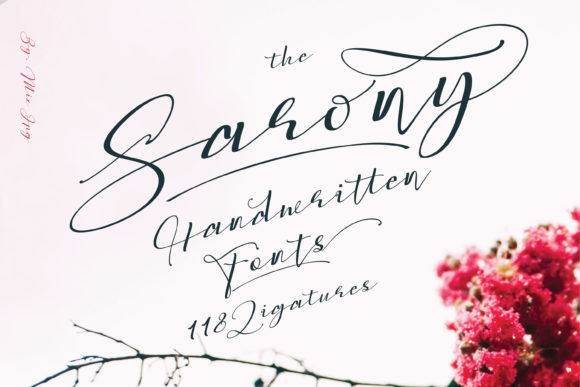
Sarony Font: Elevating Campaign Visuals with Elegant Script
Last Tuesday, while finalizing the creative assets for a boutique skincare launch, I hit a familiar wall. The product photography was stunning, and the copy was sharp, but the headlines felt disconnected from the brand’s luxurious yet approachable identity. Standard serifs felt too stiff, and trendy markers looked too casual for a premium price point. This is exactly where Sarony simplifies elegance into one truly outstanding handwritten font that bridges the gap between high-end editorial and personal connection. As marketers and creators, we often spend hours searching through hundreds of Fonts to find that single typeface which makes a campaign click, and Sarony has become my go-to solution for projects demanding sophisticated warmth.
Using Sarony for Branding and Premium Product Headings
When integrating Sarony into branding and headings, this Script Handwritten typeface immediately establishes a tone of curated luxury without sacrificing readability. In our recent campaign workflow, I needed a display font that could carry the weight of a new collection name while still feeling intimate enough for direct-to-consumer marketing. Sarony excels here because its letterforms possess a natural rhythm that mimics high-quality calligraphy but maintains the structural integrity required for digital scaling. Unlike many decorative fonts that crumble at smaller sizes or lose their charm when bolded, Sarony retains its elegant silhouette across website headers, packaging labels, and digital ad overlays.
The strategic value of using Sarony for branding lies in its ability to humanize commercial messaging. For the skincare launch, we used it exclusively for the primary campaign slogan and product category titles. This created a clear visual hierarchy where the script signaled emotional resonance and premium quality, while a clean geometric sans serif handled the technical specifications and pricing. This pairing is crucial; Sarony provides the personality, but it needs a neutral partner to ensure the overall design remains functional. When you are building a brand identity system, having a reliable Script Handwritten option like Sarony allows you to create templates that feel bespoke rather than generic, significantly boosting perceived brand value.
Sarony for Wedding Designs and Luxury Event Invitations
Designers working on wedding designs and invitations will find that Sarony offers the perfect balance of tradition and modern flair essential for contemporary nuptial stationery. I recently consulted on a rebrand for an event planning agency that needed to update their portfolio presentation and client welcome packets. They were struggling with scripts that looked either too dated or too messy for print production. Sarony simplified elegance into one truly outstanding handwritten font for their entire suite, from save-the-dates to table cards. The connecting strokes are fluid but distinct, ensuring that names and dates remain legible even when embossed or foiled on textured paper.
For wedding vendors and stationers, the commercial licensing and versatility of Sarony make it a high-ROI asset in your Fonts library. It works beautifully for formal invitation suites but transitions seamlessly to more relaxed elements like seating charts and welcome signs. In my workflow testing, I found that Sarony’s alternate characters and ligatures allow for customization that prevents repetitive letter shapes in long names or phrases—a common pain point with lesser script fonts. Whether you are designing for a black-tie gala or a garden party, this typeface adapts to the mood through spacing and color choices, making it a staple for any designer specializing in the wedding niche.
Optimizing Social Media Graphics with Sarony Typography
Creating scroll-stopping social media graphics requires Fonts that communicate instantly, and Sarony delivers clarity even in fast-moving feeds. During a recent Instagram content sprint, I tested Sarony against three other popular script fonts for quote cards and promotional teasers. The results were definitive: Sarony’s open counters and consistent stroke width made it significantly more readable on mobile screens. When users are scrolling quickly, intricate loops can blur into illegibility, but Sarony simplifies elegance into one truly outstanding handwritten font that holds up under compression and small viewports.
- Thumbnail Visibility: Use Sarony for 3-5 word hooks on YouTube thumbnails or Reel covers where instant recognition is mandatory.
- Contrast Strategy: Pair white Sarony text against dark, moody backgrounds or muted pastels to maximize accessibility and aesthetic appeal.
- Template Efficiency: Build Canva or Photoshop templates using Sarony for recurring series headers to maintain visual consistency across weeks of content.
- Mobile Testing: Always preview your Sarony headlines at 50% zoom to ensure legibility before publishing to Stories or TikTok.
Beyond static posts, Sarony performs exceptionally well in video content. As a motion-friendly Script Handwritten choice, it animates smoothly for kinetic typography or lower thirds without looking jittery. For marketers managing multi-platform campaigns, this cross-format reliability reduces production time. You can use the same Sarony headline on a Pinterest pin, an email banner, and a video intro, creating a cohesive campaign thread that reinforces message retention. Just remember to check the specific file formats included with your license to ensure you have the OTF or TTF versions needed for your specific design software and video editing tools.
Font Pairing Strategies for Sarony in Digital Campaigns
To maximize the impact of Sarony in digital campaigns, you must pair it with complementary Fonts that support rather than compete with its distinctive character. My most successful campaigns treat Sarony as the "voice" and a structured sans serif as the "body." For example, pairing Sarony with Montserrat or Lato creates a modern, accessible look ideal for e-commerce and lifestyle brands. If you are aiming for a more editorial or heritage feel, combining Sarony with a classic serif like Playfair Display adds gravitas to wedding designs and luxury branding. The key is contrast; never pair Sarony with another highly decorative script, as this dilutes the visual hierarchy and confuses the reader.
Practical application matters just as much as aesthetic theory. When setting Sarony for web banners or landing page heroes, increase the tracking slightly to improve airiness and screen readability. For printed invitations or packaging, tighter tracking can enhance the connected flow of the Script Handwritten style. Always test your pairings in context; what looks balanced on a desktop monitor might feel cramped on a phone. By treating Sarony as a strategic design element rather than just decoration, you elevate the entire campaign's professionalism. Before launching, verify your commercial font licensing covers all intended uses, especially if you are creating templates for resale or using the font in paid advertising assets. This due diligence ensures your beautiful design work remains legally secure while delivering the high-level elegance your clients and audiences expect.